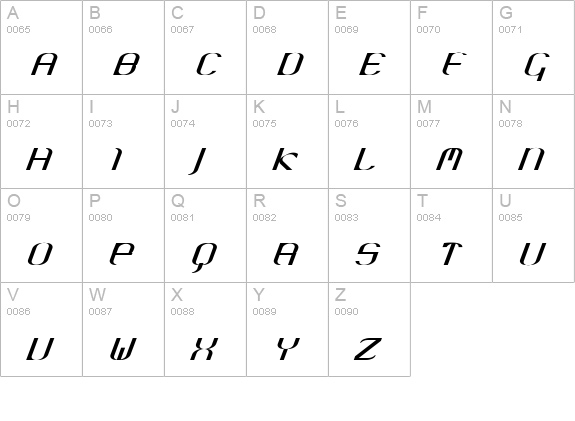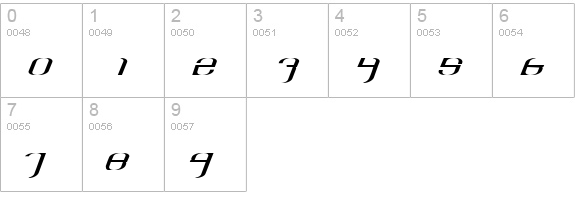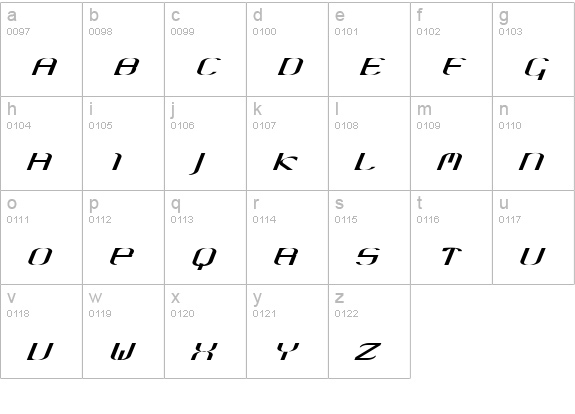
Krane font is a modern and stylish typeface that exudes sophistication and elegance. With its clean lines and contemporary design, Krane is perfect for a wide range of design projects, from branding to editorial design. This versatile font is sure to elevate any piece of work with its sleek and polished appearance. What's even better is that Krane font is completely free to download at FontsMarket.com. This means you can access this high-quality font without any cost, making it a valuable addition to your font collection. Don't miss out on the opportunity to enhance your designs with Krane font - download it today and see the difference it can make!